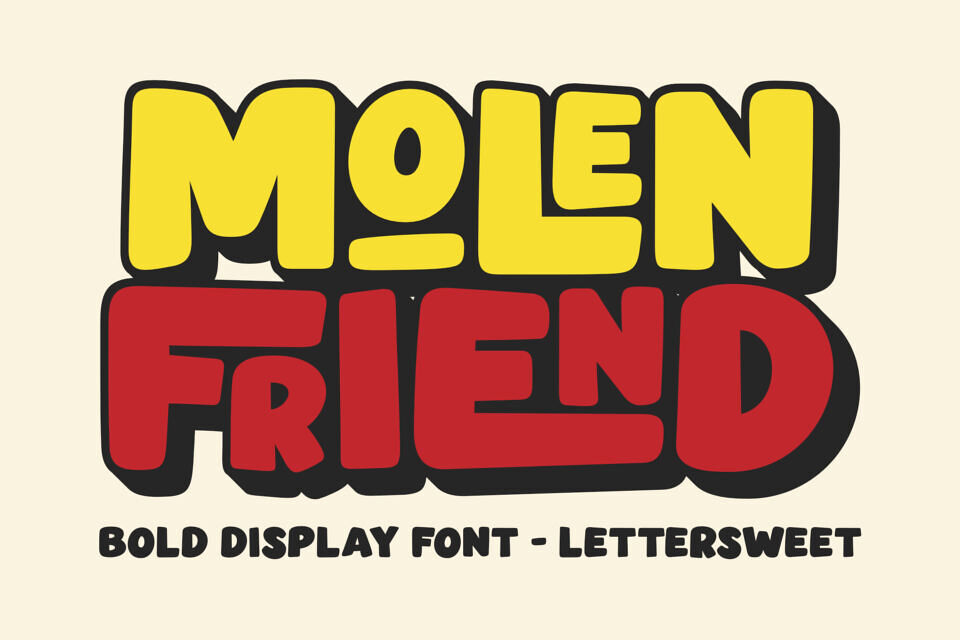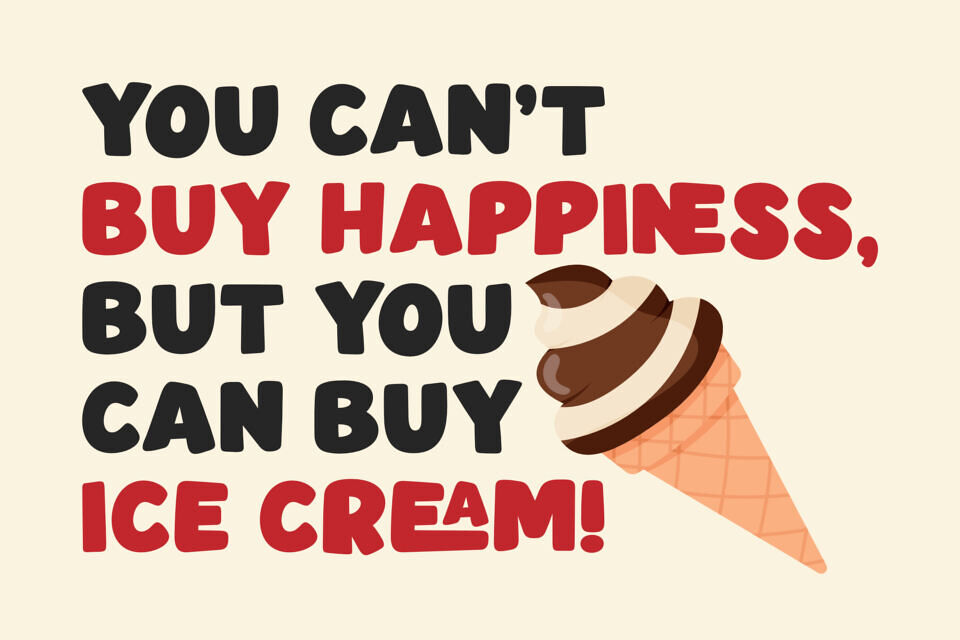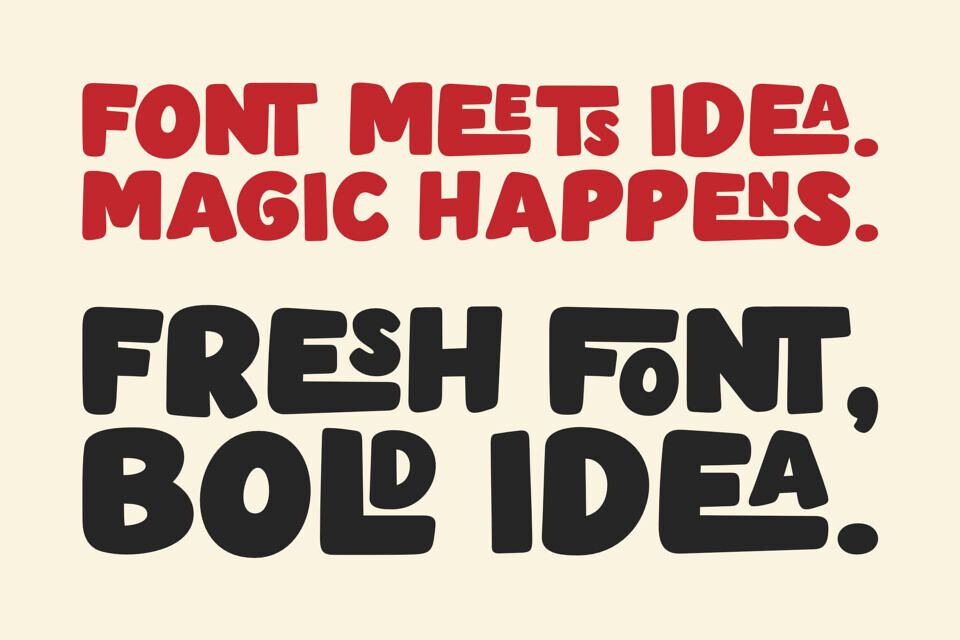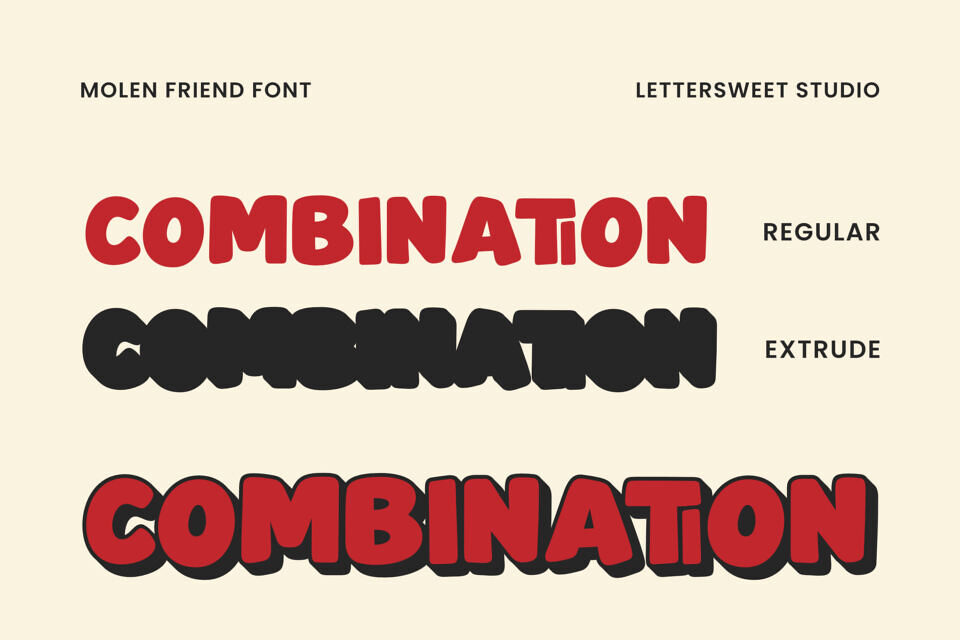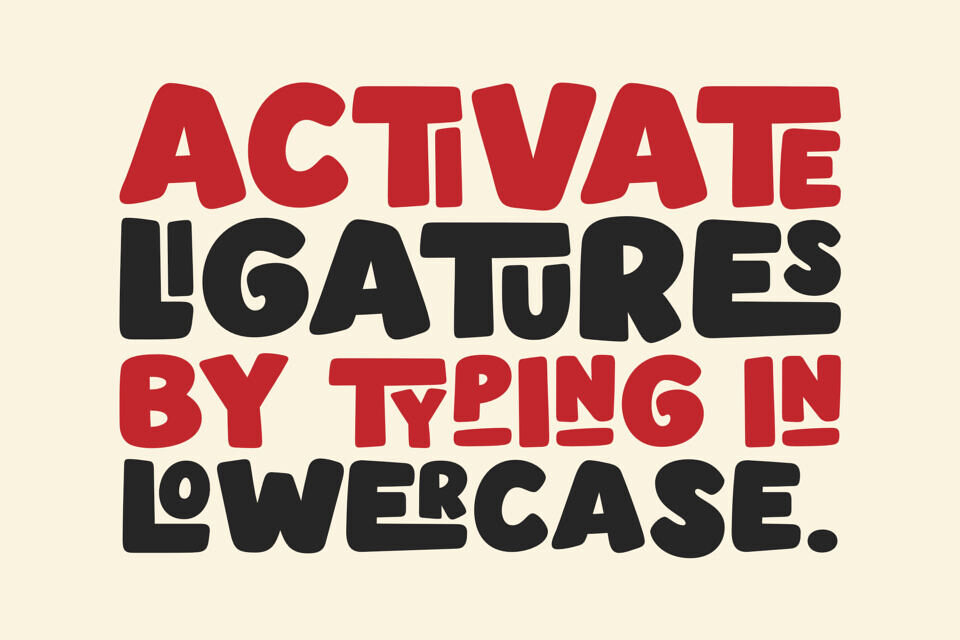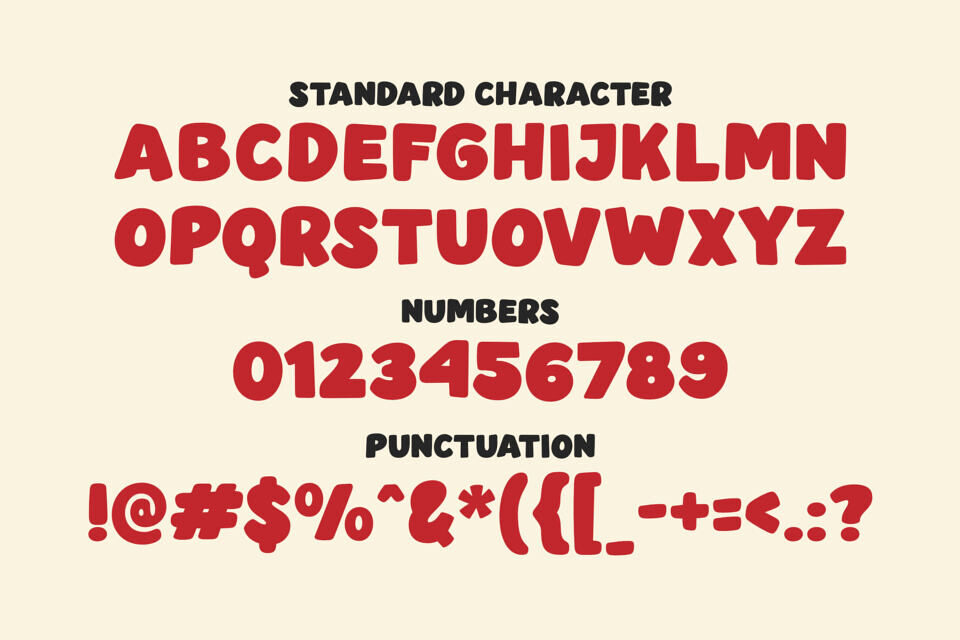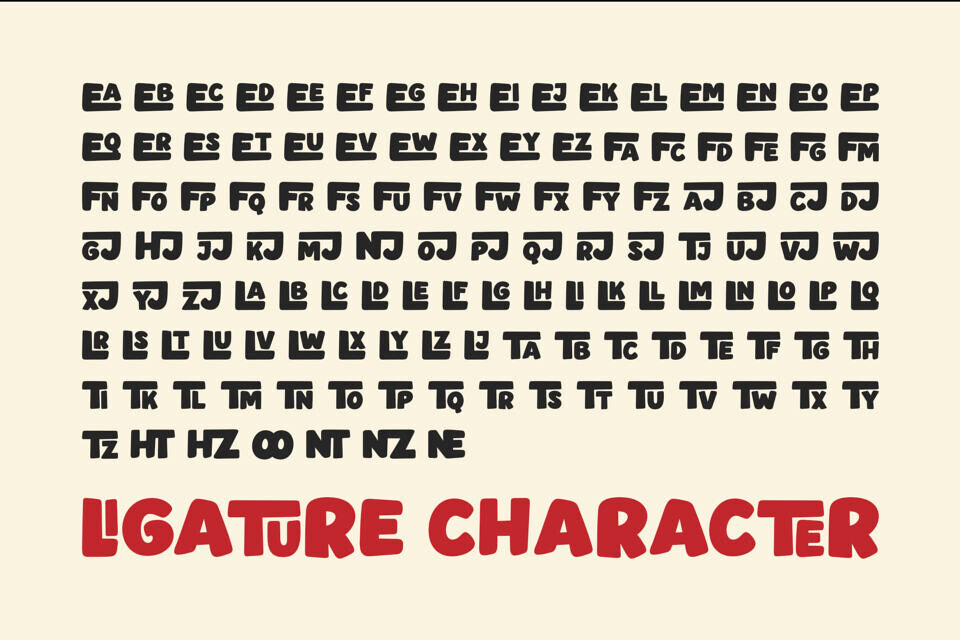
Introducing Molen Friend, a bold display font designed to bring joy and playfulness to all your creative projects!
With its rounded, cute, and expressive letterforms, Molen Friend is perfect for kid-themed designs, cartoons, food packaging, event posters, and any branding that wants to feel cheerful and approachable.